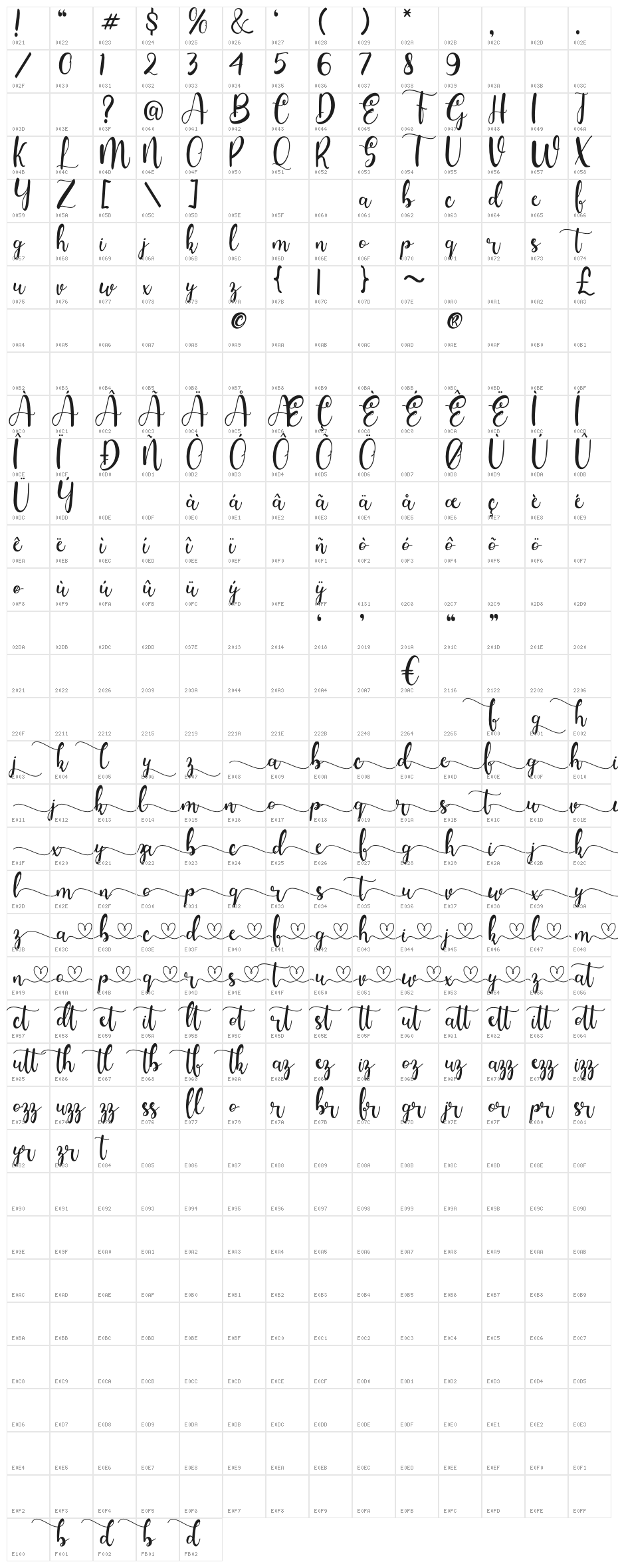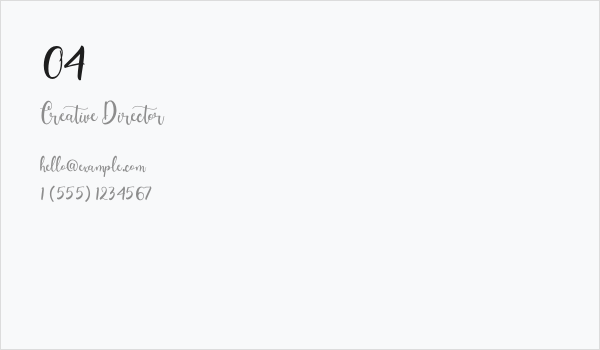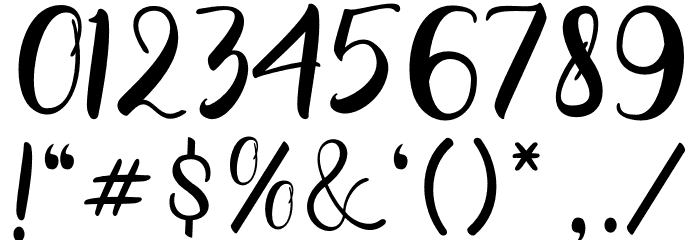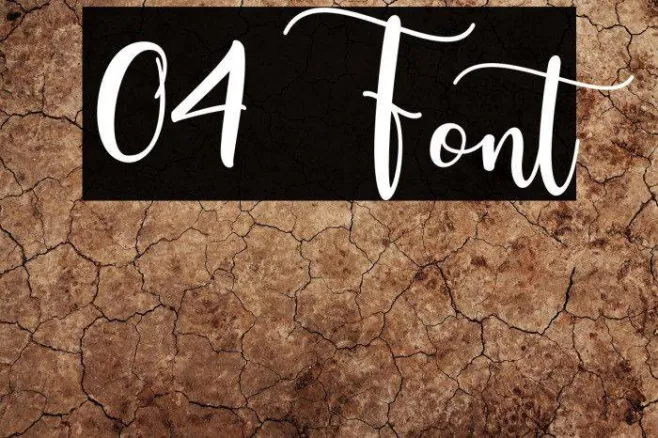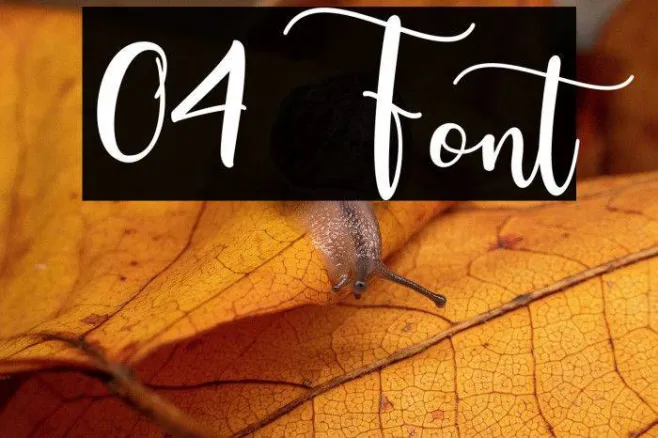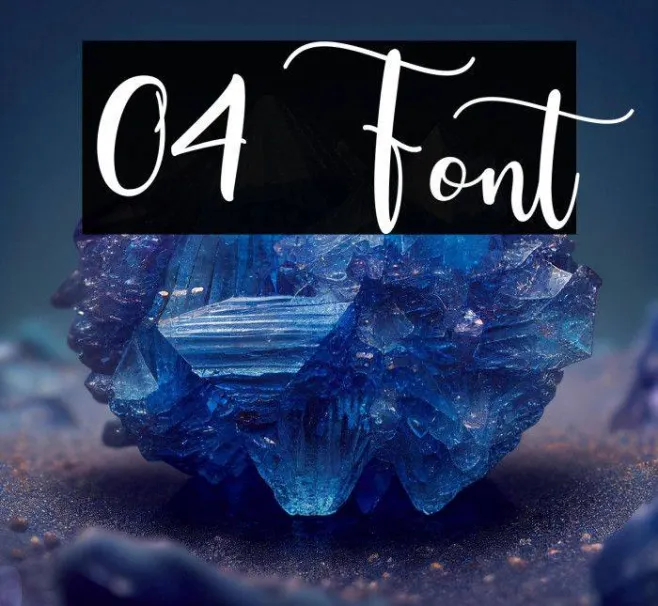
04 Font
04 Description
This font features a flowing, cursive style with elegant loops and swashes, giving it a handwritten appearance. The uppercase letters are bold and expressive, with varying stroke widths that add a dynamic feel. Lowercase letters maintain a consistent flow, connecting smoothly in a way that mimics natural handwriting. The numerals are distinct yet harmonize well with the overall script style, offering a playful yet sophisticated look. Special characters are creatively integrated, maintaining the font's artistic flair. This font is ideal for projects that require a personal touch, such as invitations, greeting cards, or branding materials.
| Font Family | Amsteria |
| Use Case | Logos, Invitations, Decorative text |
| Proposed Projects | Ideal for wedding invitations, greeting cards, branding, and decorative projects. |